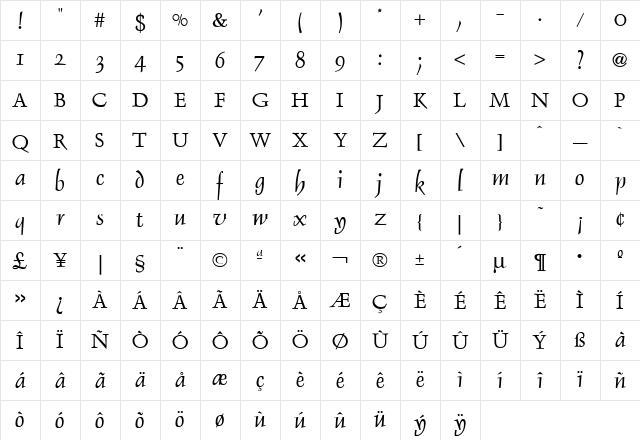
Dauphin Regular
Dauphin Family
Dauphin Regular
Design Context for Dauphin
Dauphin is a composed and adaptable typeface that performs quietly and consistently across a wide range of design contexts.